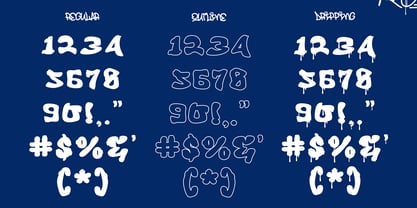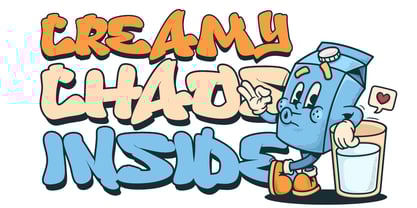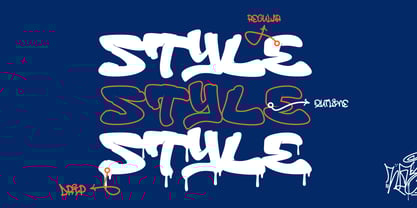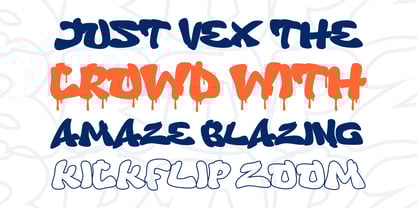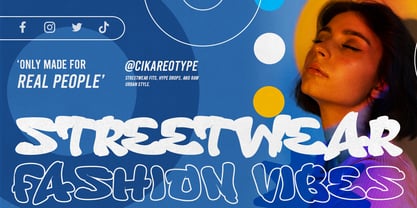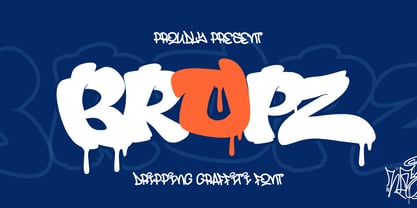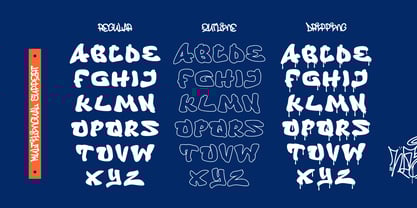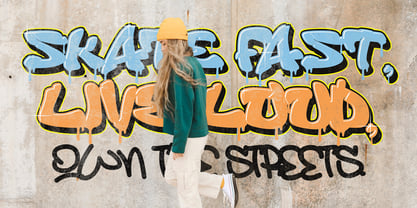
Bropz Drip
The Bropz Drip Font Family was designed by Sipanji and published by Sipanji21. Bropz Drip contains 3 styles and family package options. More about this family
Bropz is a bold and energetic dripping graffiti font that brings street-style attitude to your designs. With thick, rounded strokes and expressive drips on every character, this font captures the raw, rebellious spirit of urban art. Bropz is perfect for posters, hip-hop album covers, sticker designs, streetwear, and any project that craves a youthful, edgy vibe. It comes in three styles: Regular with drip, Regular without drip, and Outline, giving you the flexibility to mix and match based on your creative needs. Whether for print or digital design, Bropz adds a loud and confident personality to every piece.